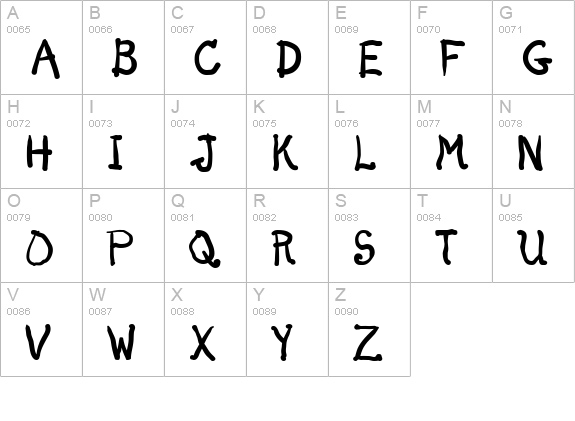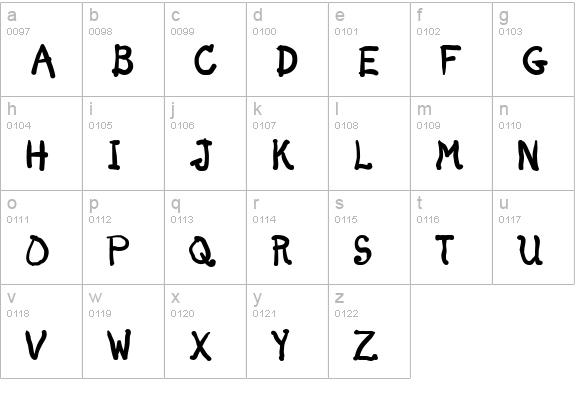
Introducing Dunno font, a stylish and versatile typeface designed to add a touch of sophistication to your projects. This unique font features elegant curves and sharp lines, making it perfect for a wide range of design applications. Whether you're creating a logo, branding materials, or social media graphics, Dunno font is sure to make a statement. Best of all, Dunno font is available for free download at FontsMarket.com. Simply visit the website to access this stunning font and start incorporating it into your designs today. Don't miss out on the opportunity to enhance your creative projects with the beauty and elegance of Dunno font. Download it now and let your creativity shine!